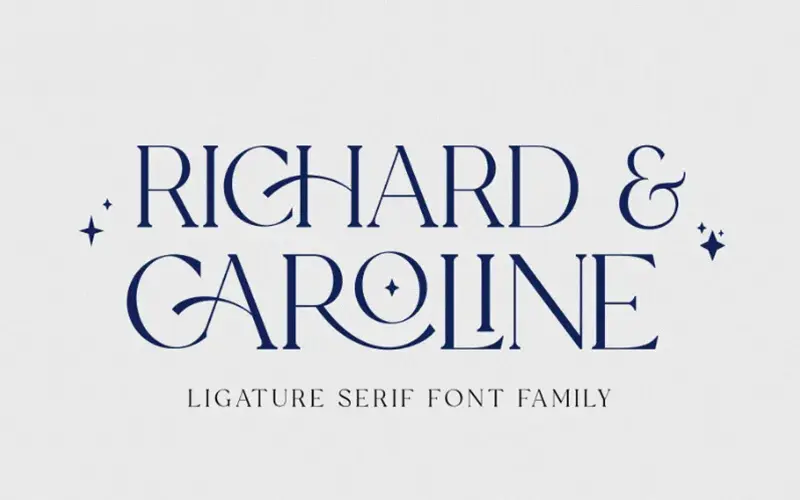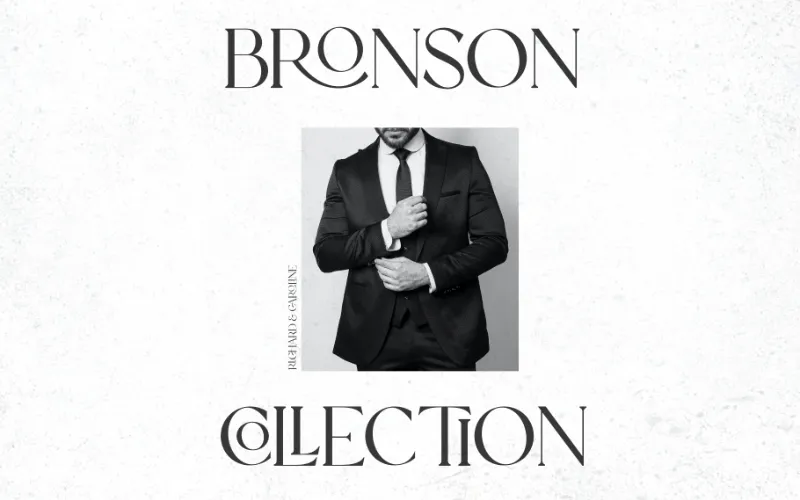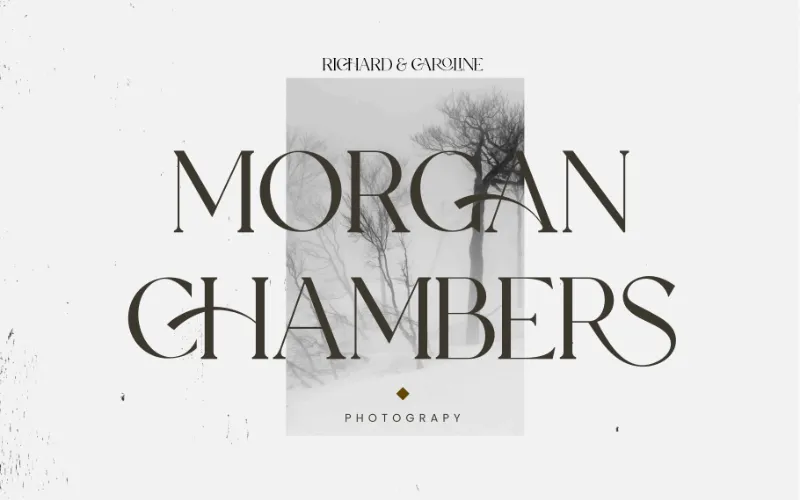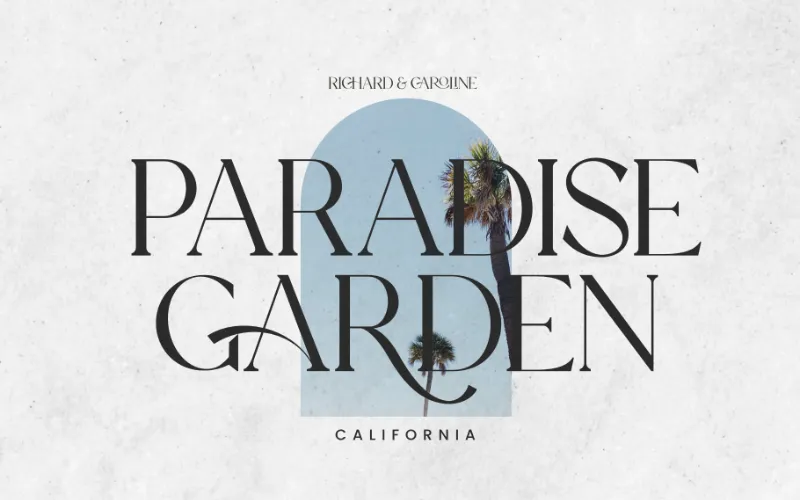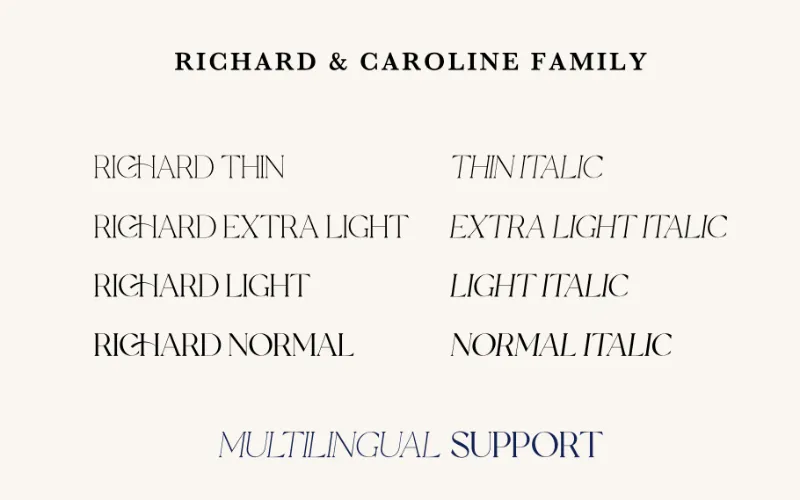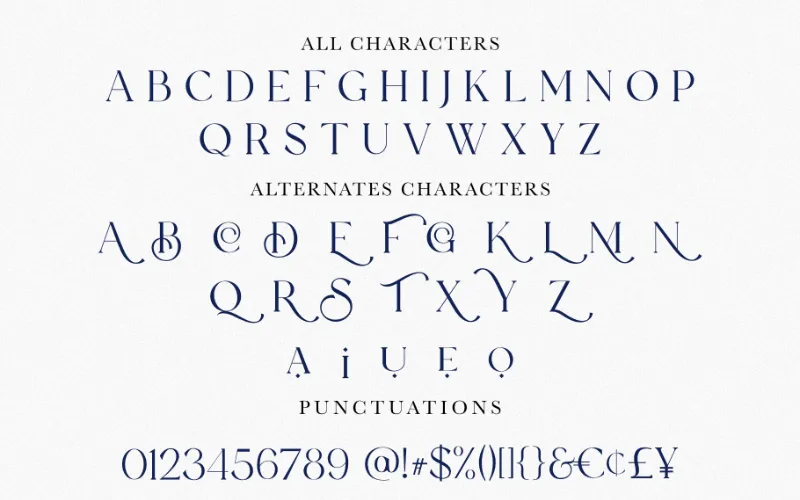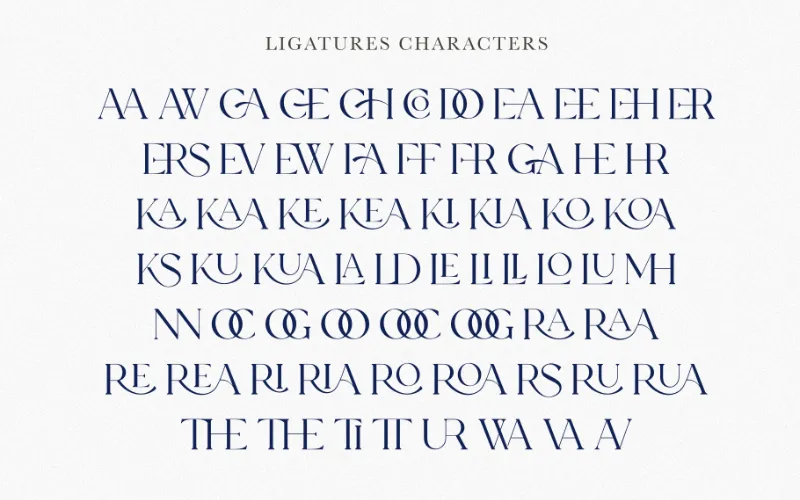
Add an unmatched elegance into your creations and be ready to create designs like never before with the –
Ligature Serif Font Family - Richard & Caroline
Whether you’re crafting wedding invitations, luxury branding, or minimalist web designs, this font family ensures a sophisticated touch to each design.